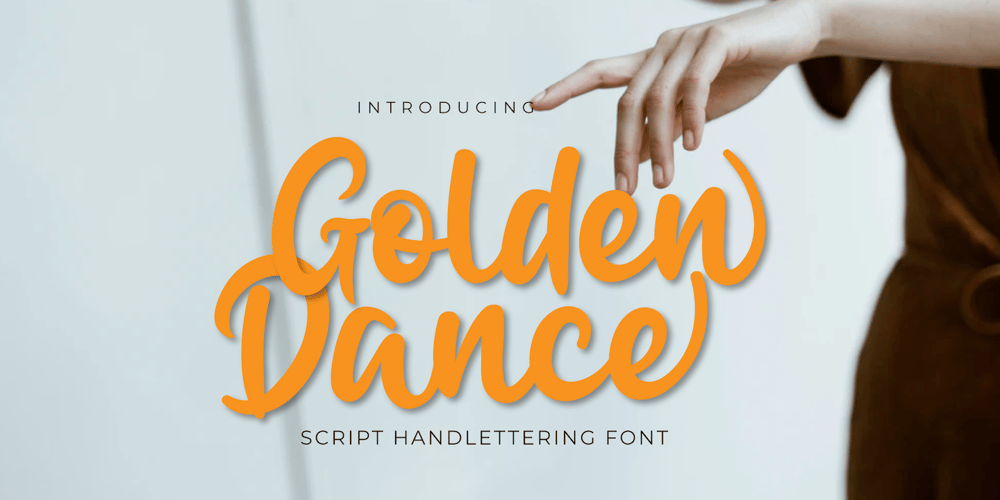
Golden Dance
Golden Dance font
Golden Dance Font Family was designed by Rozikan and published by Twinletter. Golden Dance contains 1 styles and family package options. Our newest Font, Golden DanceThis font offers beautiful abstract typographic harmony for a wide variety of design projects, including natural handwriting in digital form for designs, quote designs, social media business designs, advertisements, trademarks, promotional banners, posts, posters, signatures, and all. the design requires handwriting or whatever design you want.This font is equipped with uppercase, lowercase, numbers, punctuation marks, swhases, and several variations on each character including multi-language.What’s Included : Standard glyphs Ligature Works on PC & Mac Simple installations Accessible in Adobe Illustrator, Adobe Photoshop, Adobe InDesign, even work on Microsoft Word. PUA Encoded Characters – Fully accessible without additional design software. Fonts include multilingual support for; Afrikaans, Albanian, Croatian, Czech, Danish, Dutch, English, Estonian, Finnish, French, German, Hungarian, Italian, Norwegian, Polish, Portuguese, Slovak, Slovenian, Spanish, Swedish